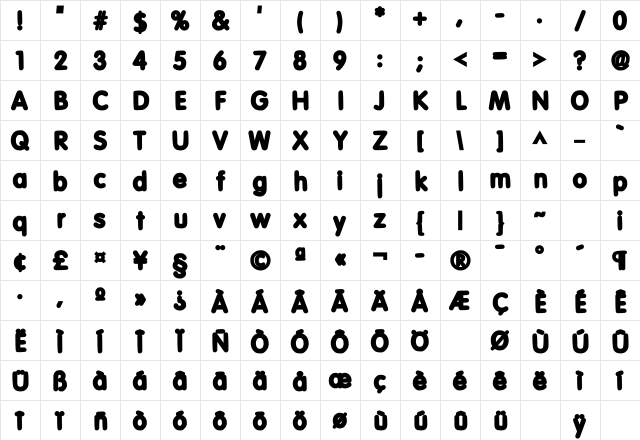
Elementary SF Black Bold Free Font
Elementary SF Black Bold
Elementary SF Black Family
Complete Elementary SF Black Bold glyph index. Displaying only characters natively supported by Elementary SF Black Bold font.
Design Context for Elementary SF Black
Elementary SF Black is a composed and adaptable typeface that performs quietly and consistently across a wide range of design contexts. Its bold stroke weight gives it real presence on the page.